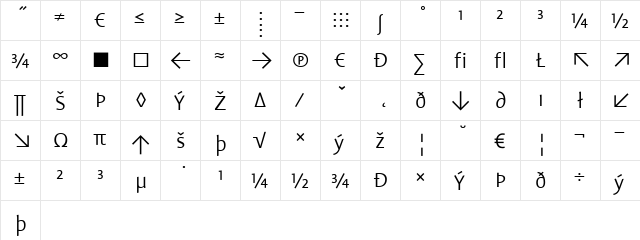
ProfileXP Light
Design Context for ProfileXP Typeface
ProfileXP offers clean, dependable letterforms without strong stylistic allegiance, making it a practical choice for designers who need flexibility. The delicate stroke weight brings airiness and refinement to layouts.